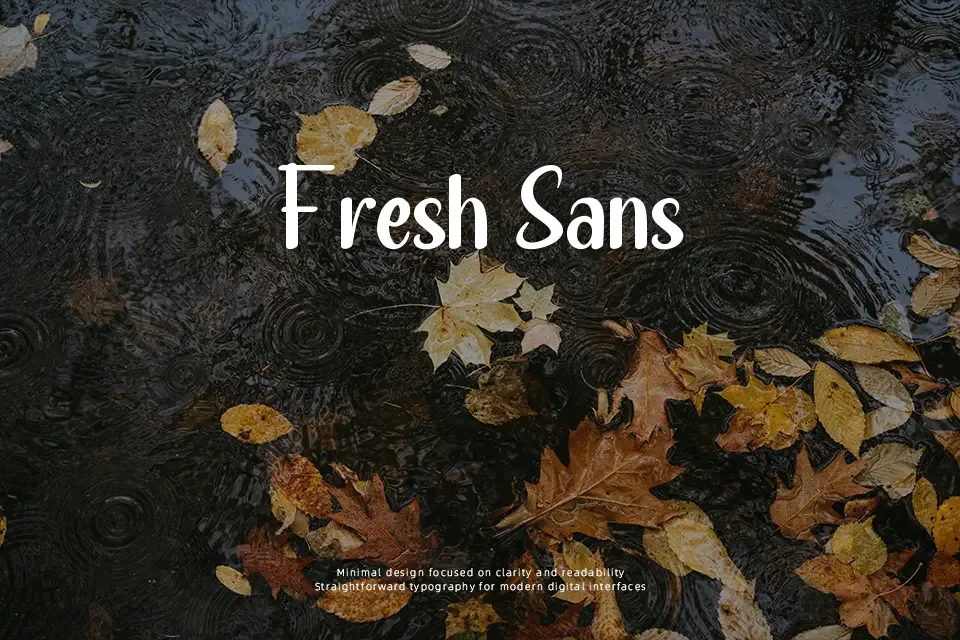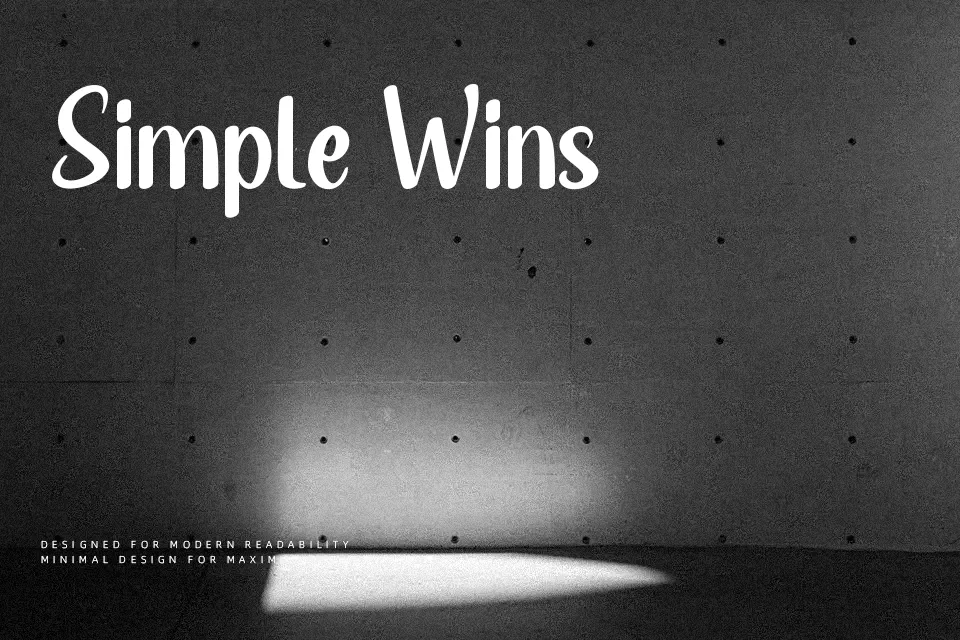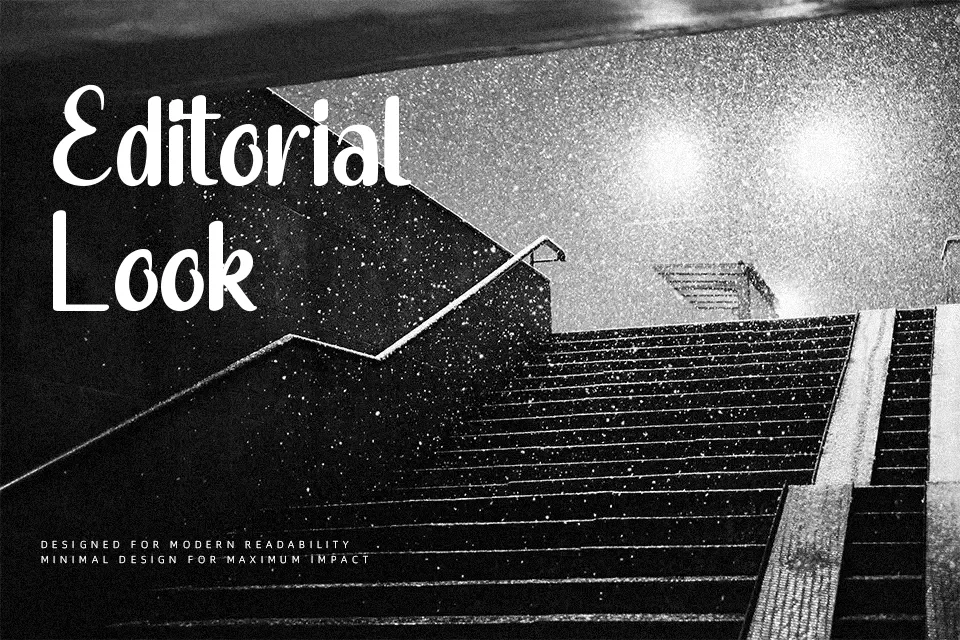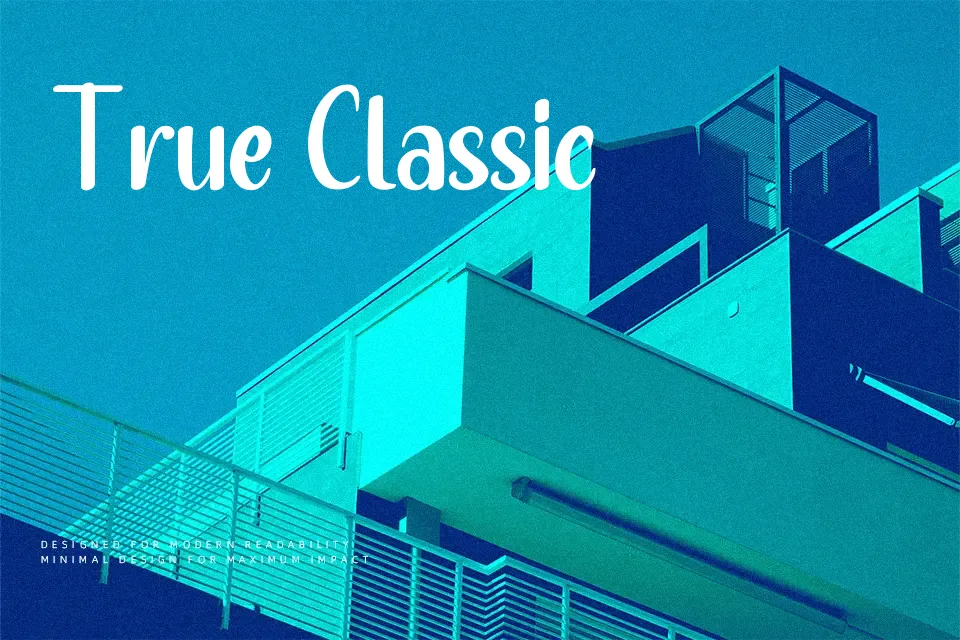
Bakery Roast Font
Chunky proportions, soft-edged strokes, and a slightly irregular baseline give Bakery Roast its instantly recognizable warmth — it reads less like a printed typeface and more like a chalk-written shop sign. The vintage sans serif structure keeps things legible at display sizes, while the handcrafted quirks stop it from feeling sterile. It lands well on café menus, artisan food packaging, and coffee brand identity work where personality matters more than precision. That charm, however, comes with a real tradeoff: set it at body-text sizes or use it in dense copy and the character spacing starts working against readability. This is a headline player, not an all-rounder — the moment it’s treated as a versatile workhorse, it loses what makes it appealing.
Best For:- Café and coffee shop logo headers
– Artisan bakery packaging labels
– Food-brand promotional posters
– Restaurant menu title treatments
Not Ideal For:- Body text or long-form reading
– Corporate or professional business documents
– Digital UI labels and navigation text
– Formal invitations requiring refined elegance
Perfect for branding, logo, and packaging, with a creative and display style.